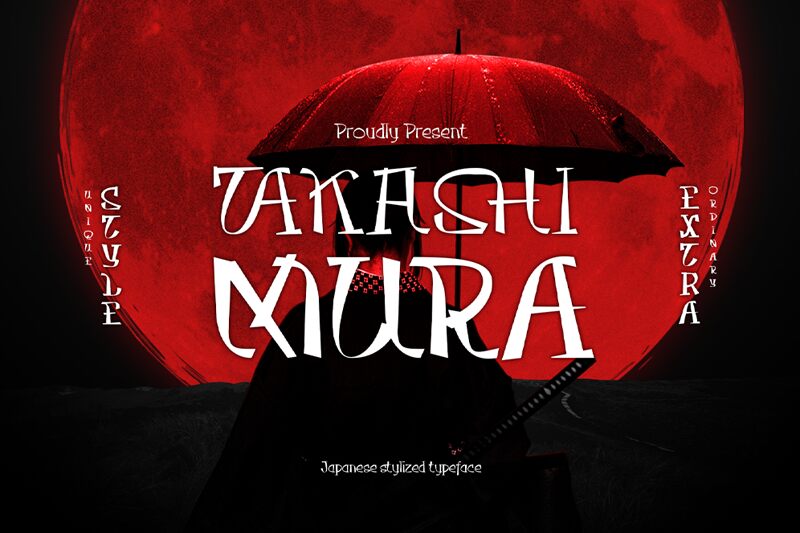
Takashimura, the stunning Japanese-style font designed by Alit Design, is the perfect choice for any project seeking to evoke an exotic and elegant atmosphere. With its semi-light weight, this foreign font captures the essence of traditional Japanese calligraphy while remaining easily legible. From invitations to branding materials, Takashimura is a versatile typeface that can be used across a variety of mediums. It's perfect for creating sleek and modern designs with a touch of cultural flair. Whether you're designing a website or crafting print materials, Takashimura will infuse your project with an air of sophistication and style.
Takashimura